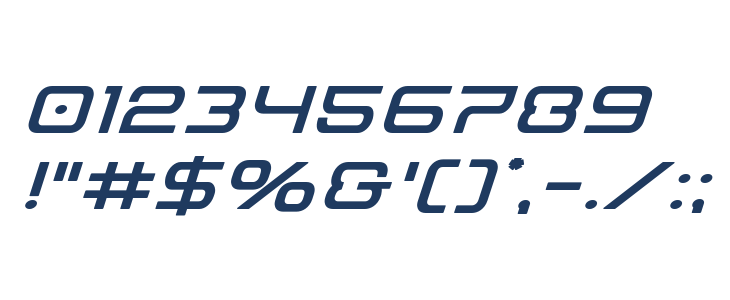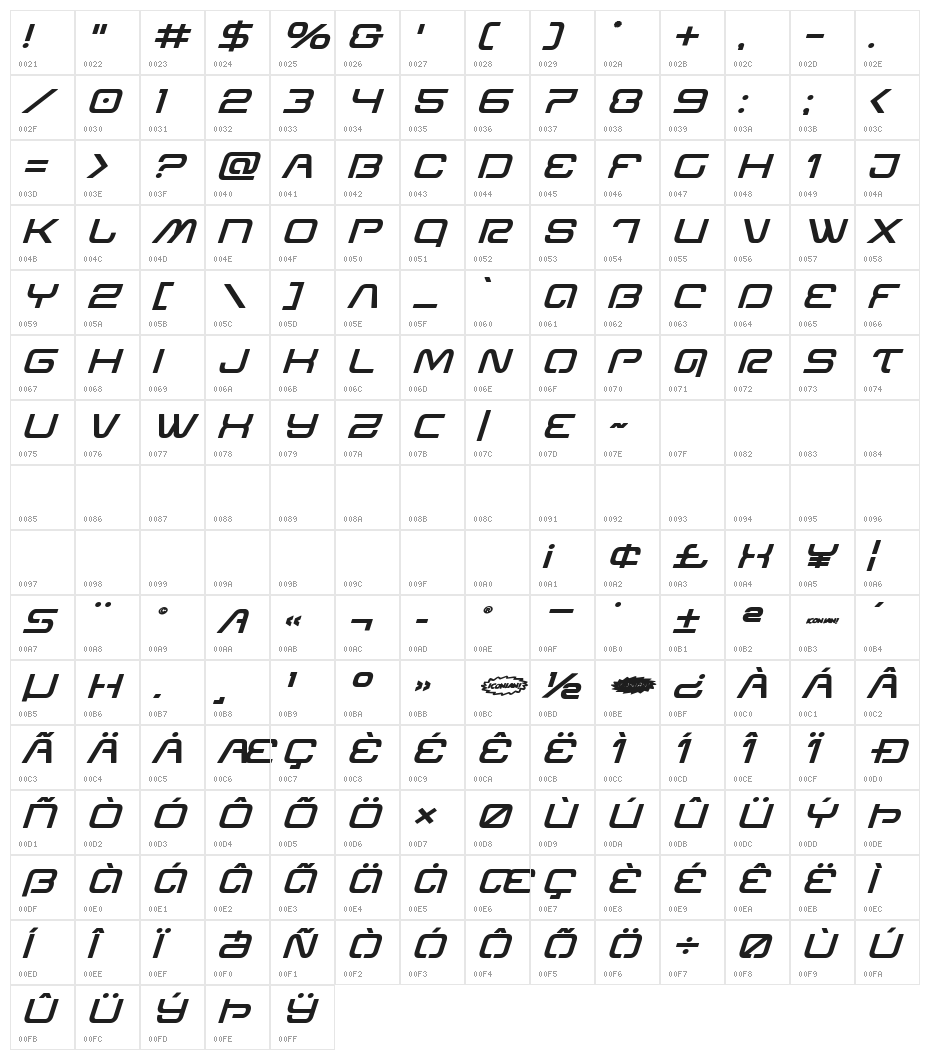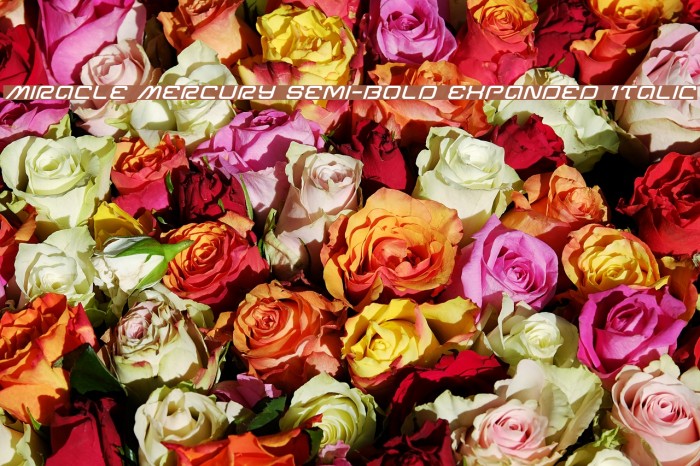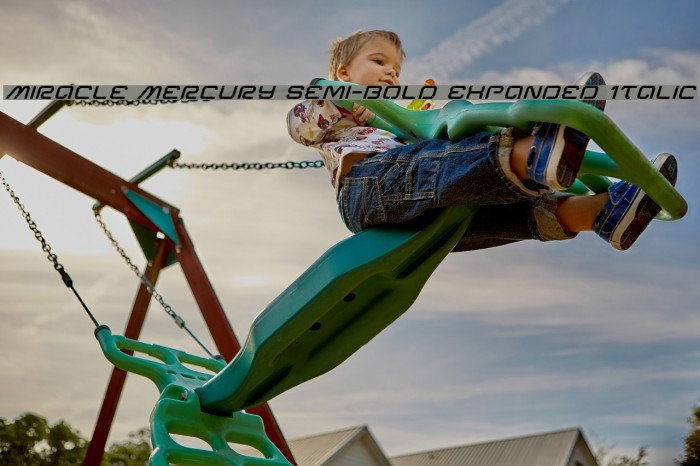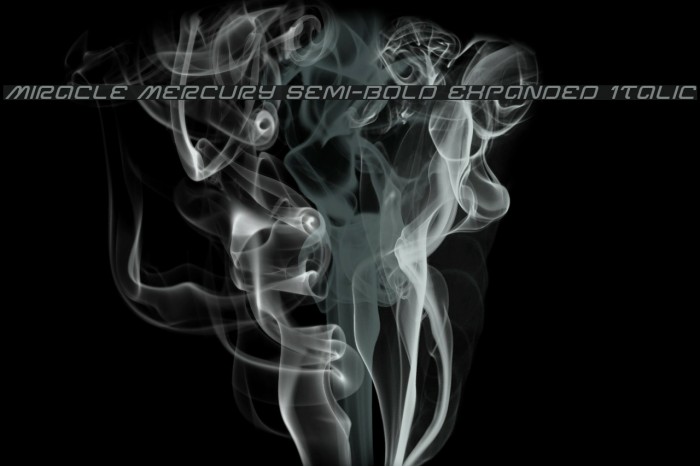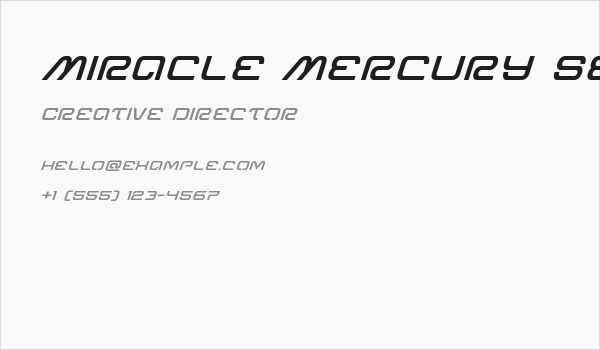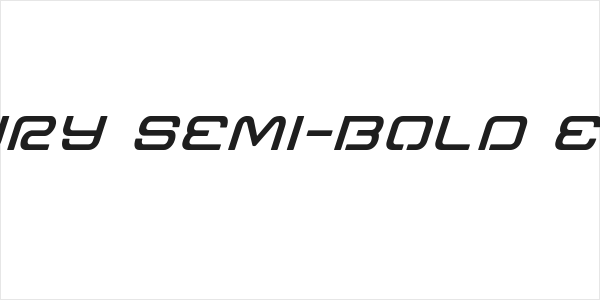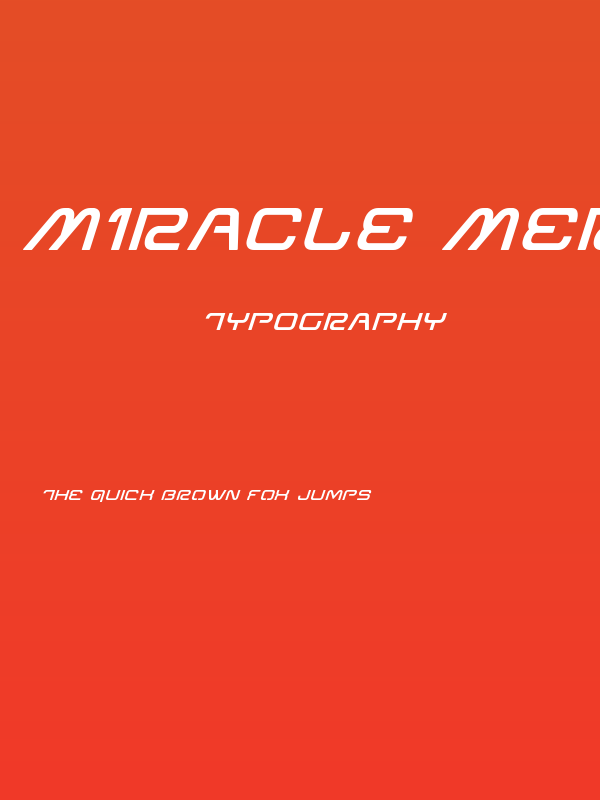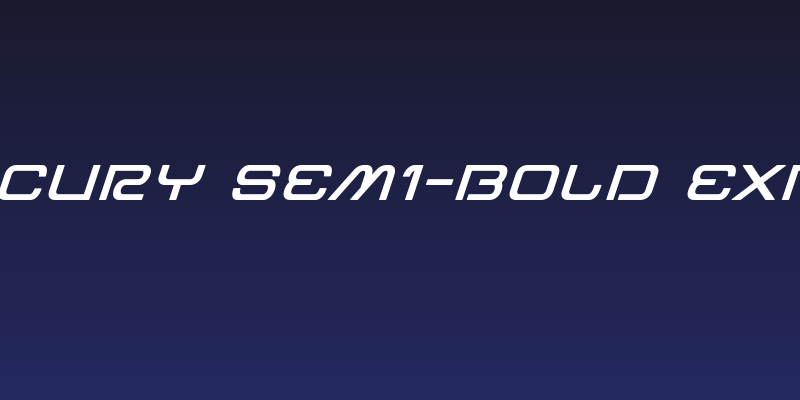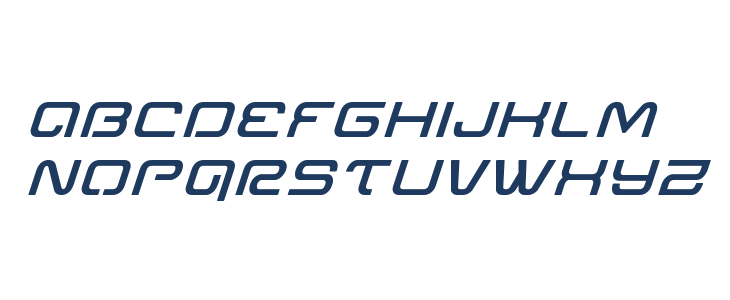
Miracle Mercury Semi-Bold Expanded Italic Font
Miracle Mercury Semi-Bold Expanded Italic Description
This font features a sleek, modern design with a semi-bold weight and expanded width. The italic style adds a dynamic and forward-leaning appearance, making it ideal for conveying movement and energy. Each character is crafted with precision, showcasing a futuristic aesthetic that is both clean and stylish. The uppercase and lowercase letters maintain a consistent flow, while the numerals and special characters complement the overall design. The font's expanded width provides ample spacing, enhancing readability without compromising its contemporary look.
| Use Case | Logos, Headlines, Branding |
| Proposed Projects | Ideal for branding, advertising, sports team logos, and technology-related projects. |